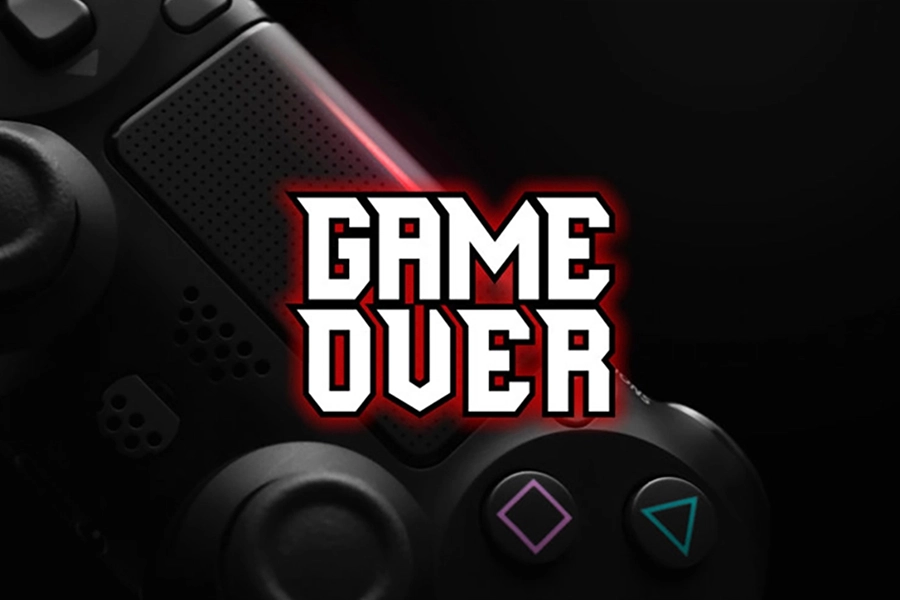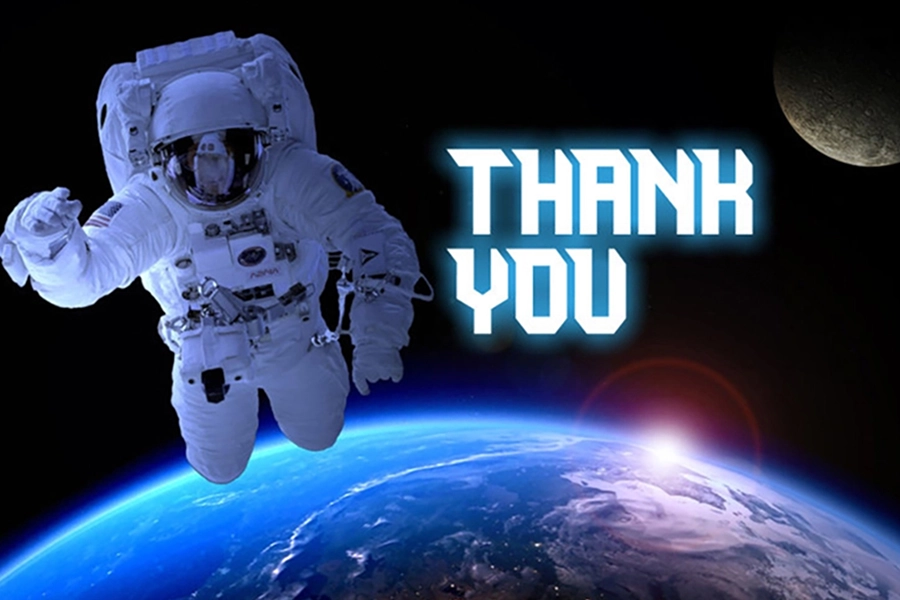
Big Space – ESport Typeface
Big Space is a font that is made in a sporty, sci-fi, modern, bold, cutting edge and futuristic style.
It is suitable for titles, logos, quotes, posters, jersey numbers, etc.
There are no alternative characters and it’s very easy to use.